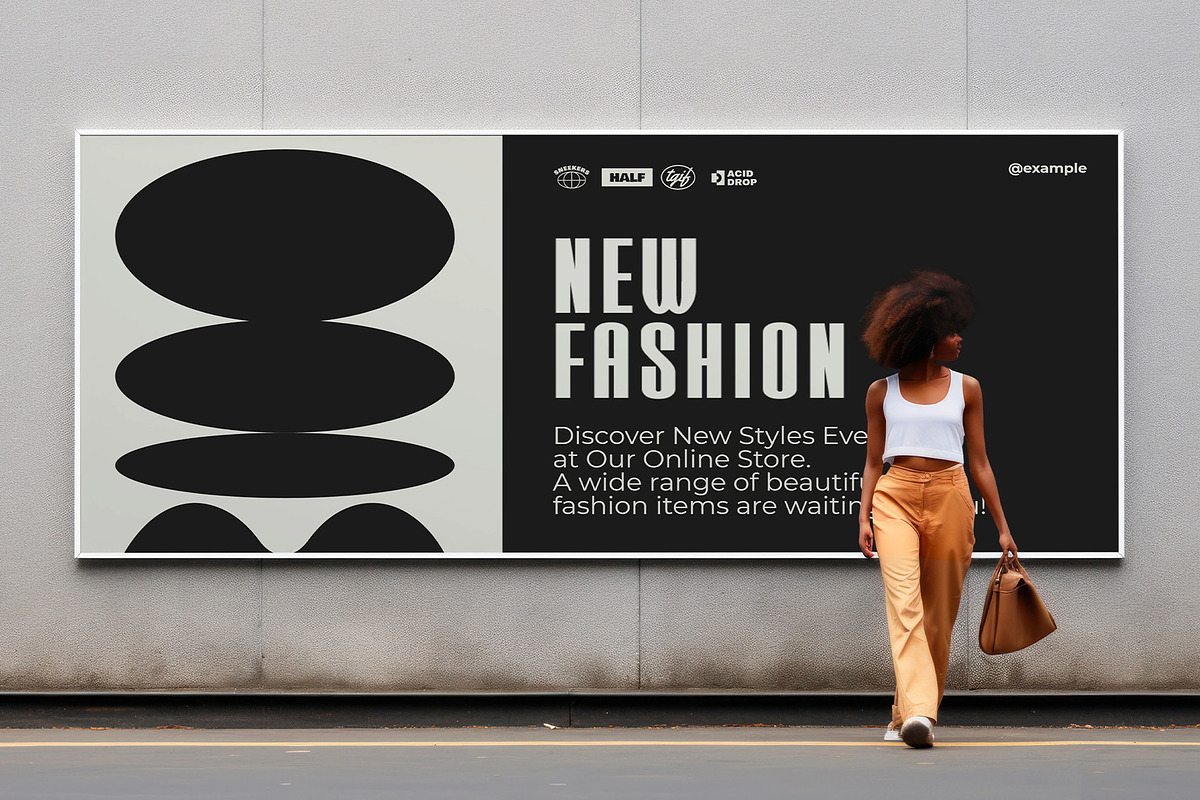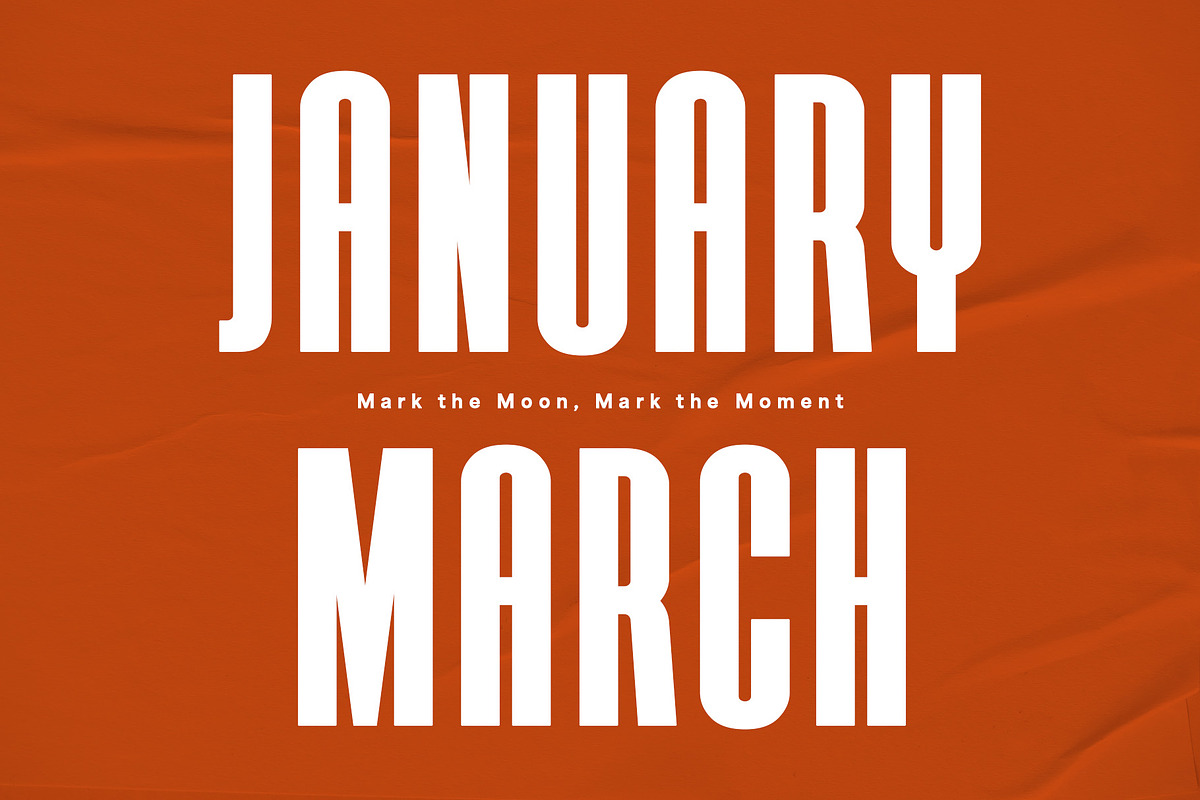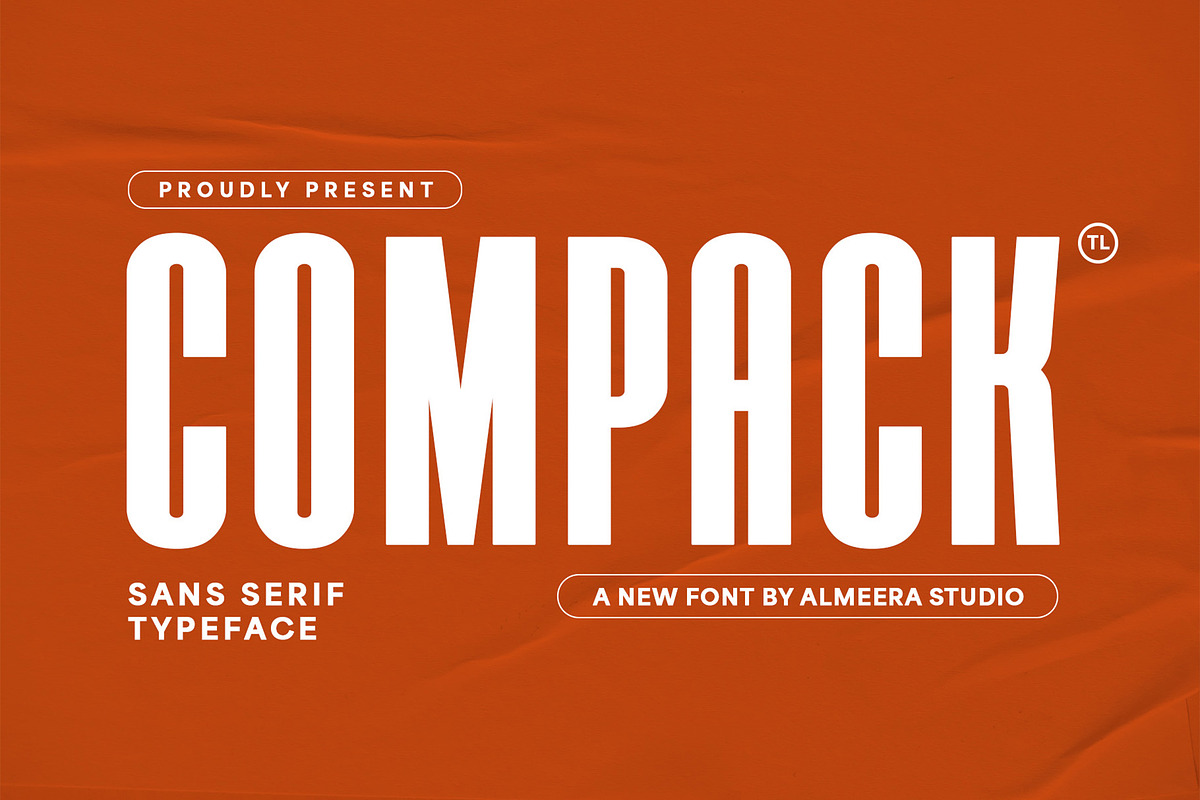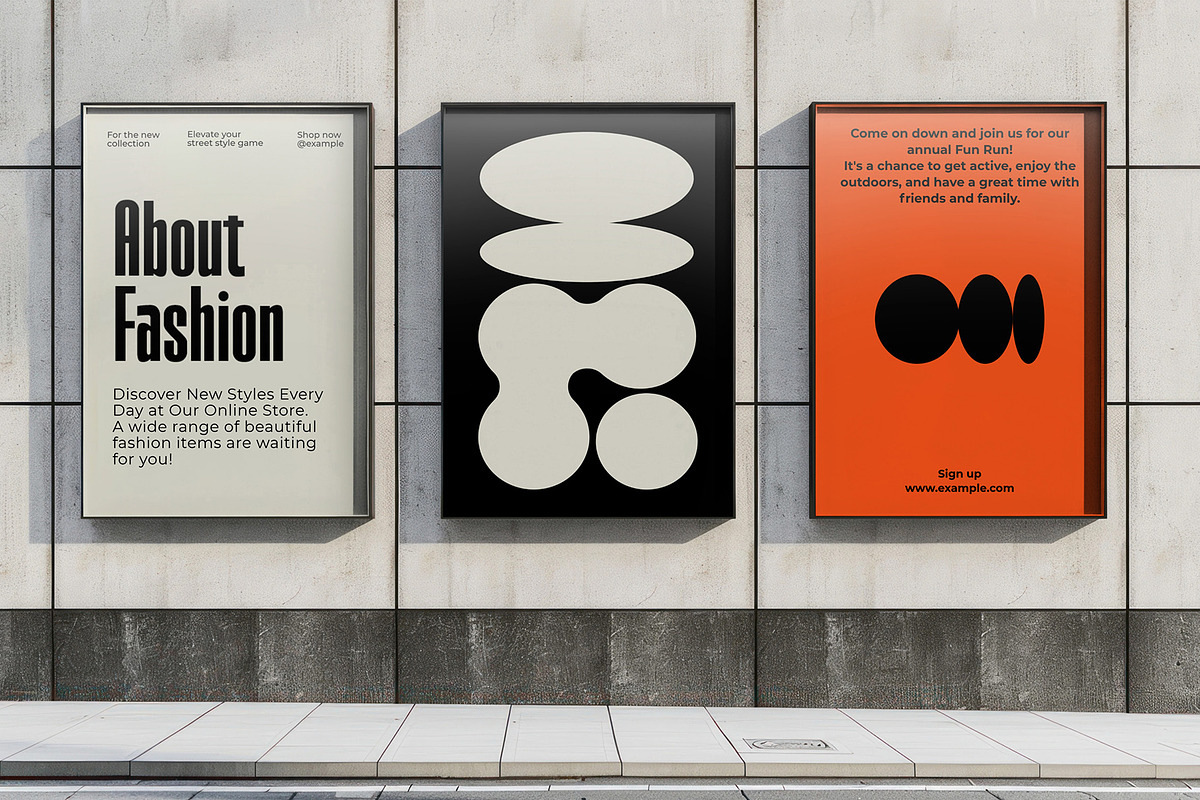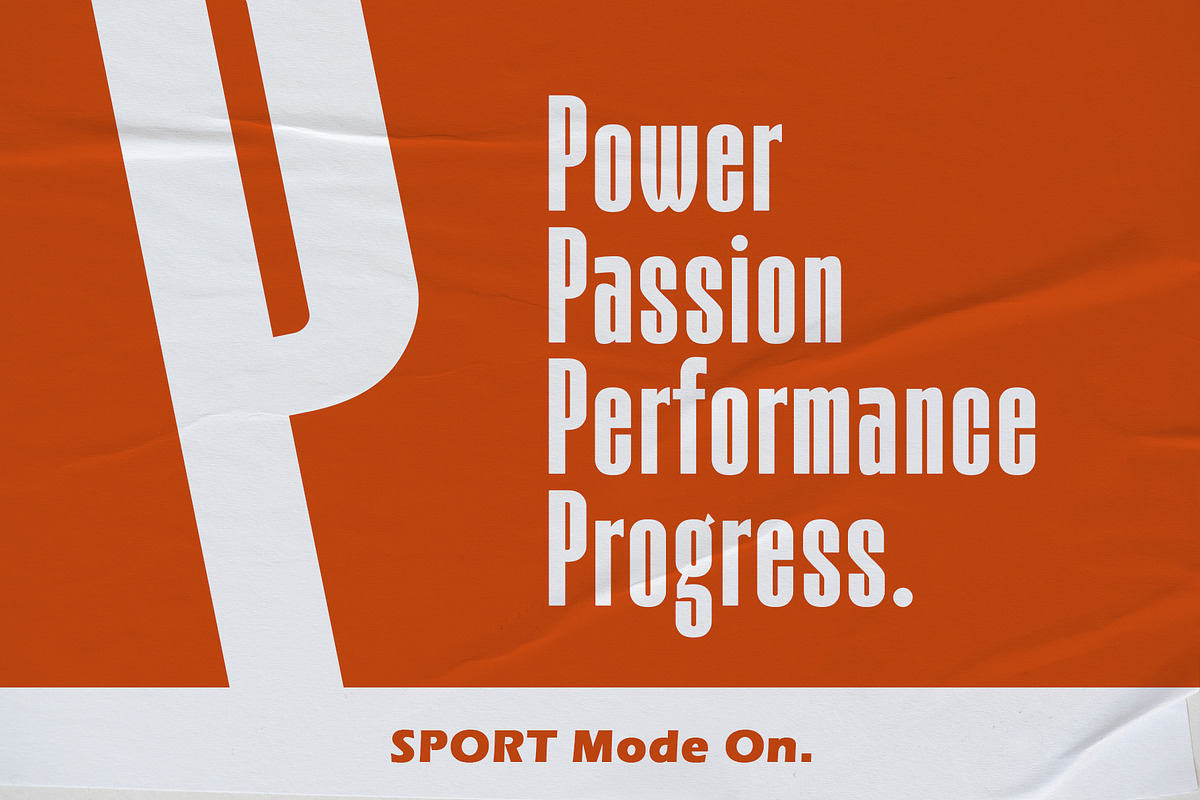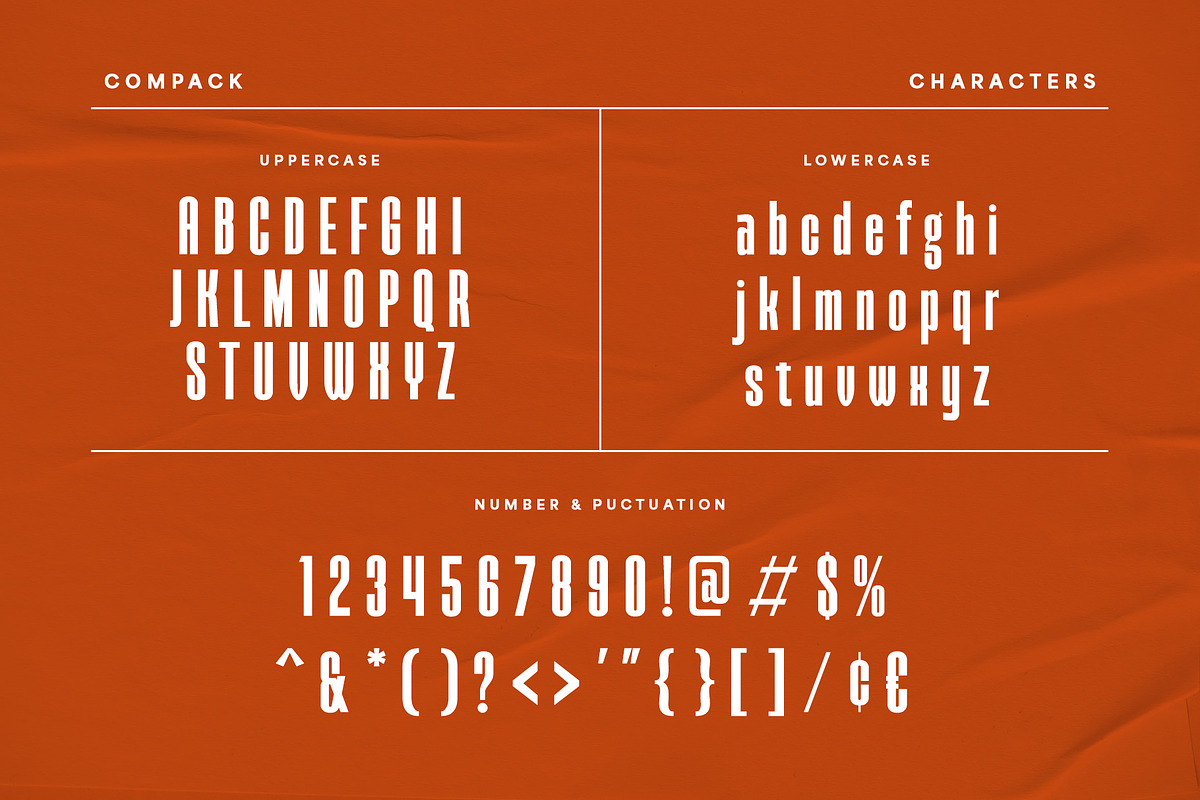
Compack - Bold & Modern Sans
Discover Compack, a powerful and contemporary sans serif typeface designed to make a statement. Perfect for bold headlines, impactful branding, sports graphics, and modern advertising, Compack delivers a strong and confident presence. Its condensed yet robust letterforms ensure maximum visual punch without sacrificing readability, making it incredibly versatile for various applications. Whether you're designing a dynamic logo, a compelling poster, or a cutting-edge digital campaign, Compack brings a clean, professional, and energetic feel to your projects. Elevate your typography with Compack – the ideal font for designers looking for a bold, no-nonsense aesthetic with a sleek, modern edge.
- Numerial